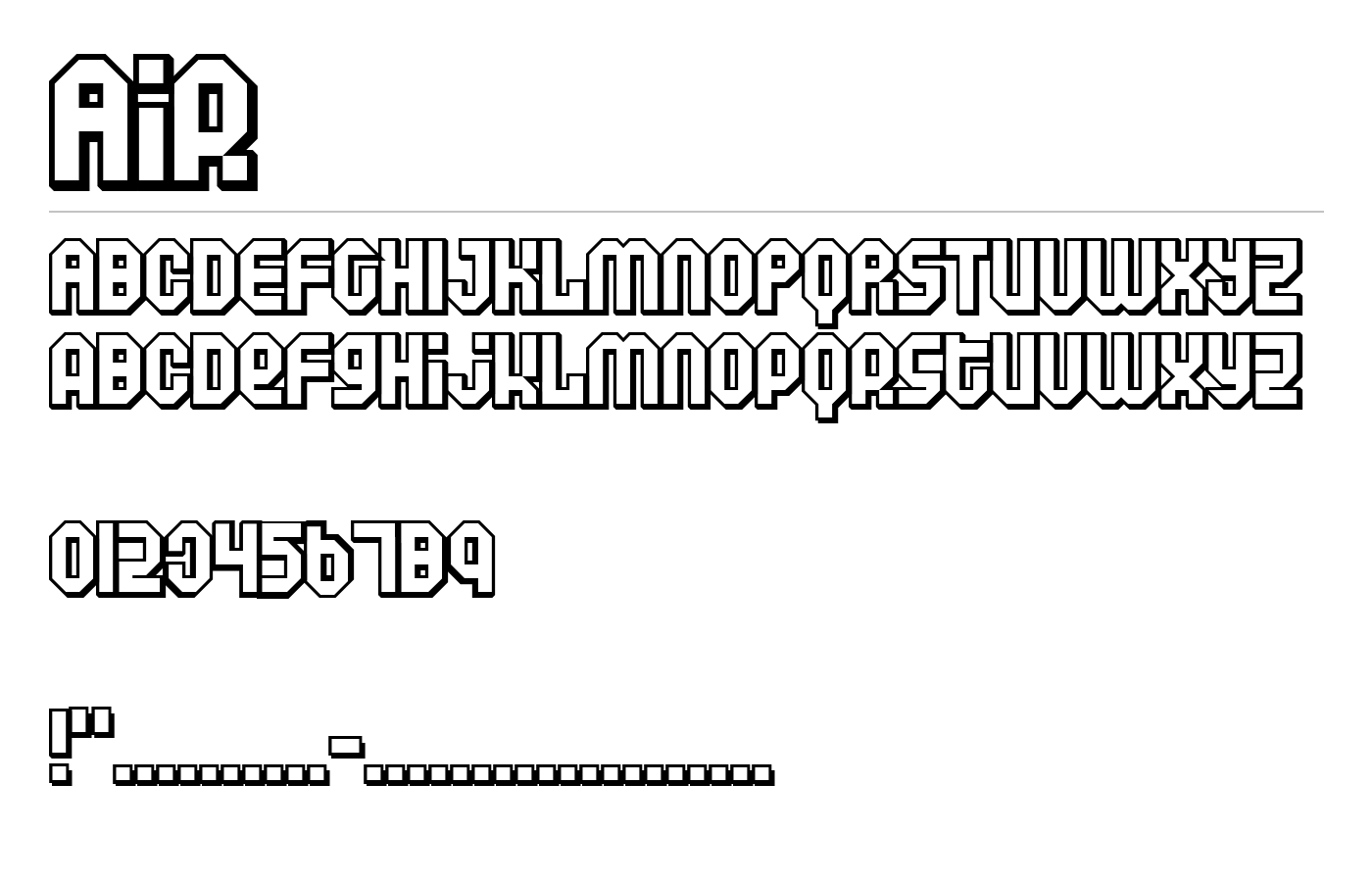
Air Font is a bold, geometric sans serif typeface with a futuristic and digital aesthetic. Its blocky, outlined letterforms with sharp angles and consistent stroke widths give it a strong, tech-inspired personality, making it perfect for eye-catching headlines, logos, and modern branding that demands a distinctive, edgy look. This font excels in display use where a striking, contemporary style is desired.
Air Font